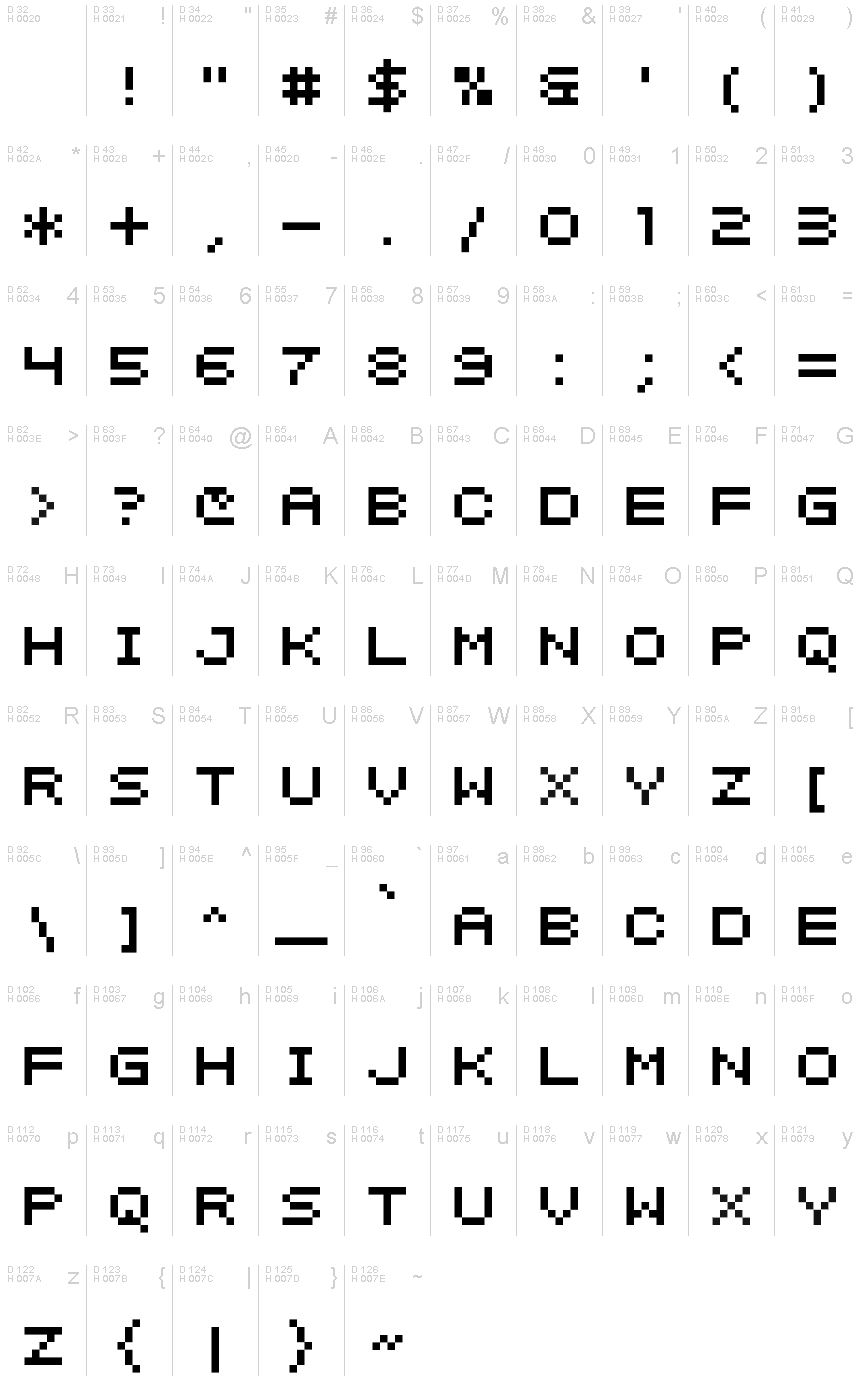
SF Intermosaic
SF Intermosaic emerges from the digital realm of ShyFonts Type Foundry, bringing with it a bold fusion of retro charm and contemporary clarity. Crafted as a bitmap font, it boasts a uniquely pixelated style that harkens back to the golden era of 8-bit graphics while maintaining an air of modern sophistication. The semi-bold weight adds a touch of assertiveness to its character, ensuring legibility and presence on any screen or pixel-based display.
With its expanded width, SF Intermosaic offers an inviting spaciousness that allows each character to breathe, making it not only aesthetically pleasing but also highly readable. The clean lines and blocky forms are reminiscent of early digital watch displays and arcade screens, yet they possess an elegance suitable for today's design needs.
SF Intermosaic is perfectly suited for projects that seek to blend nostalgia with innovation—think video game interfaces, tech start-up branding, or dynamic web design elements. Its distinctive appearance enables designers to make a statement in creative endeavors ranging from logos to app UIs while capturing the essence of digital artistry embedded in its pixels.